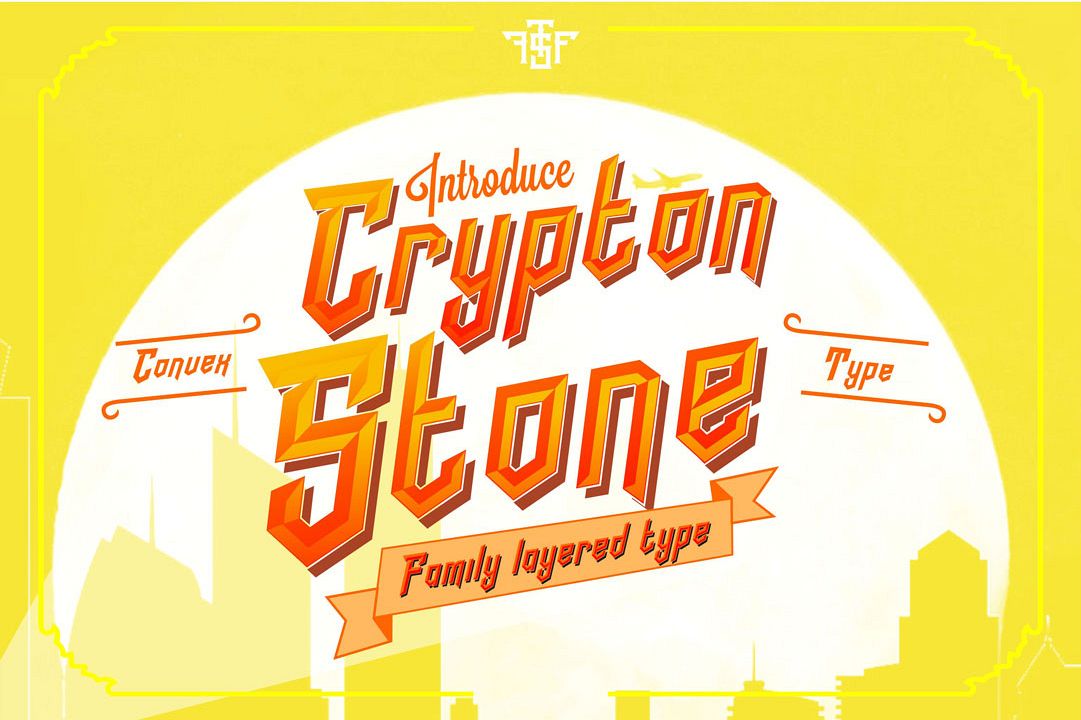
Created By uncurve
Inspired by Automotive design,Poster,Game,3D, Modern design & Superhero it’s have a Straight shapes and good looking for Logotype,Letterhead, Titles, Poster, Movie, Toy Label and more..